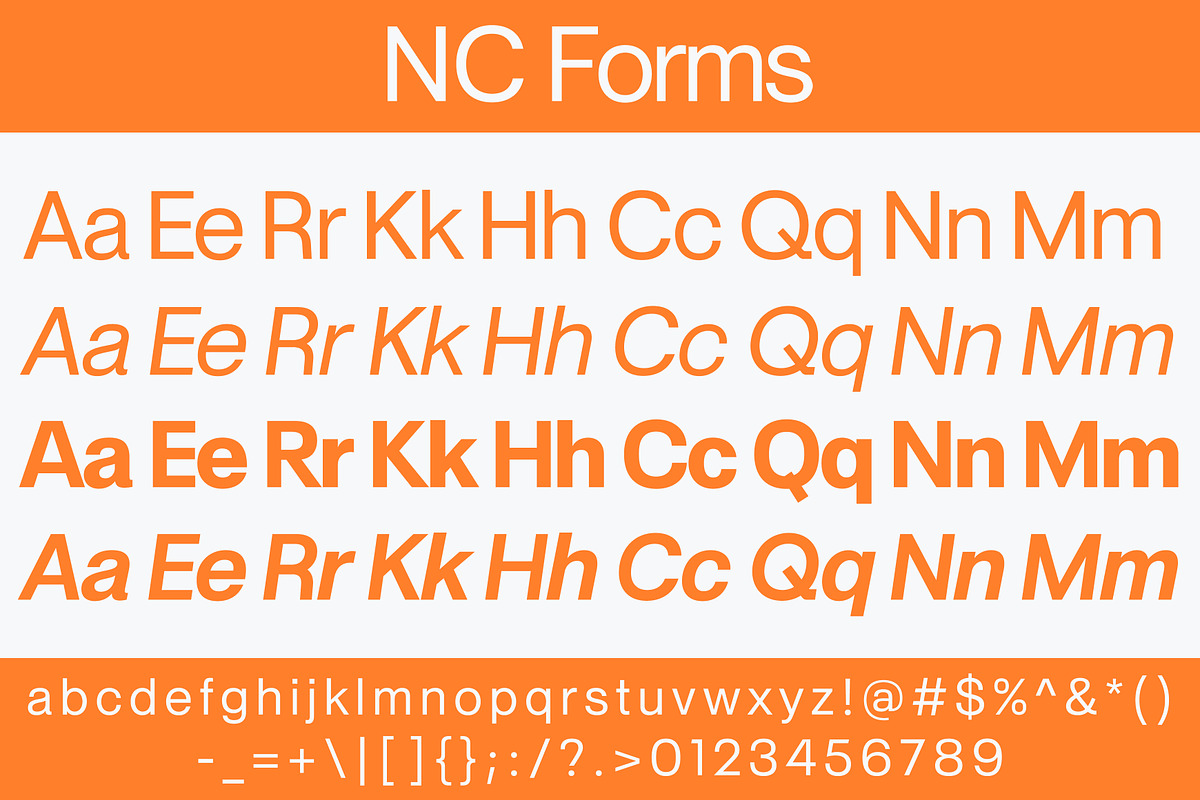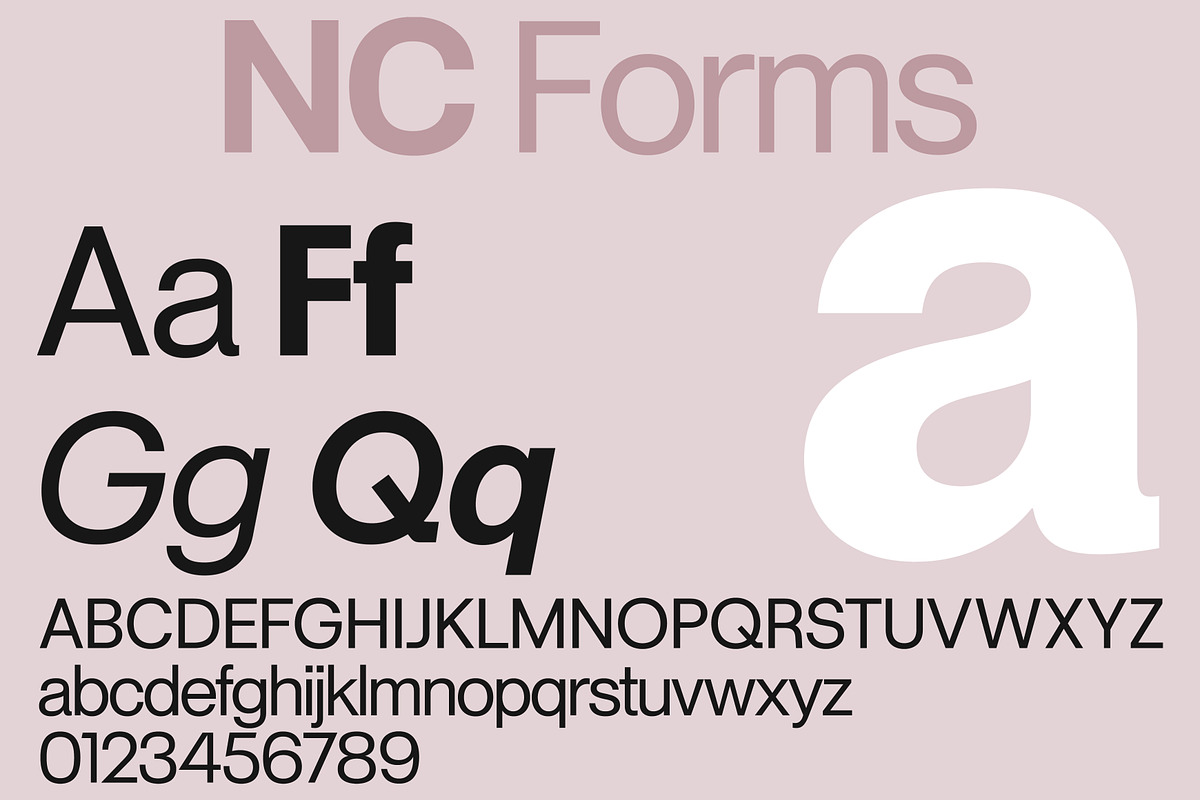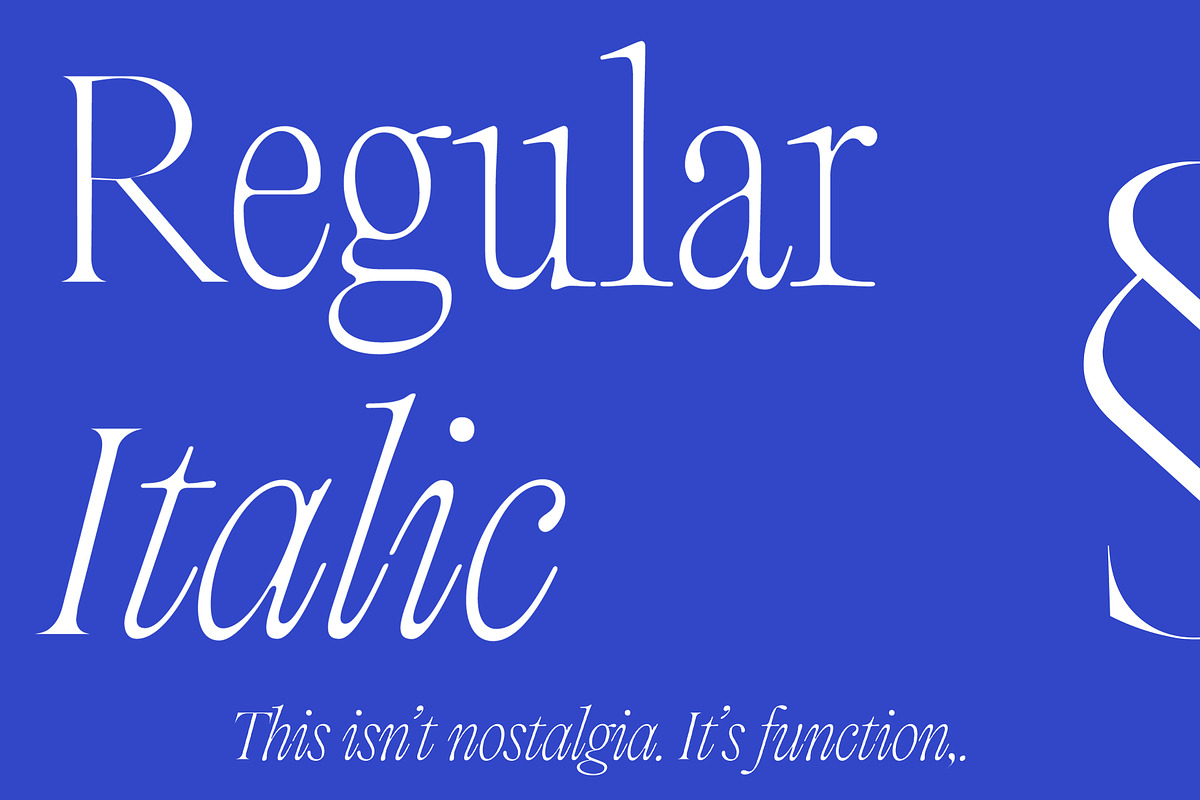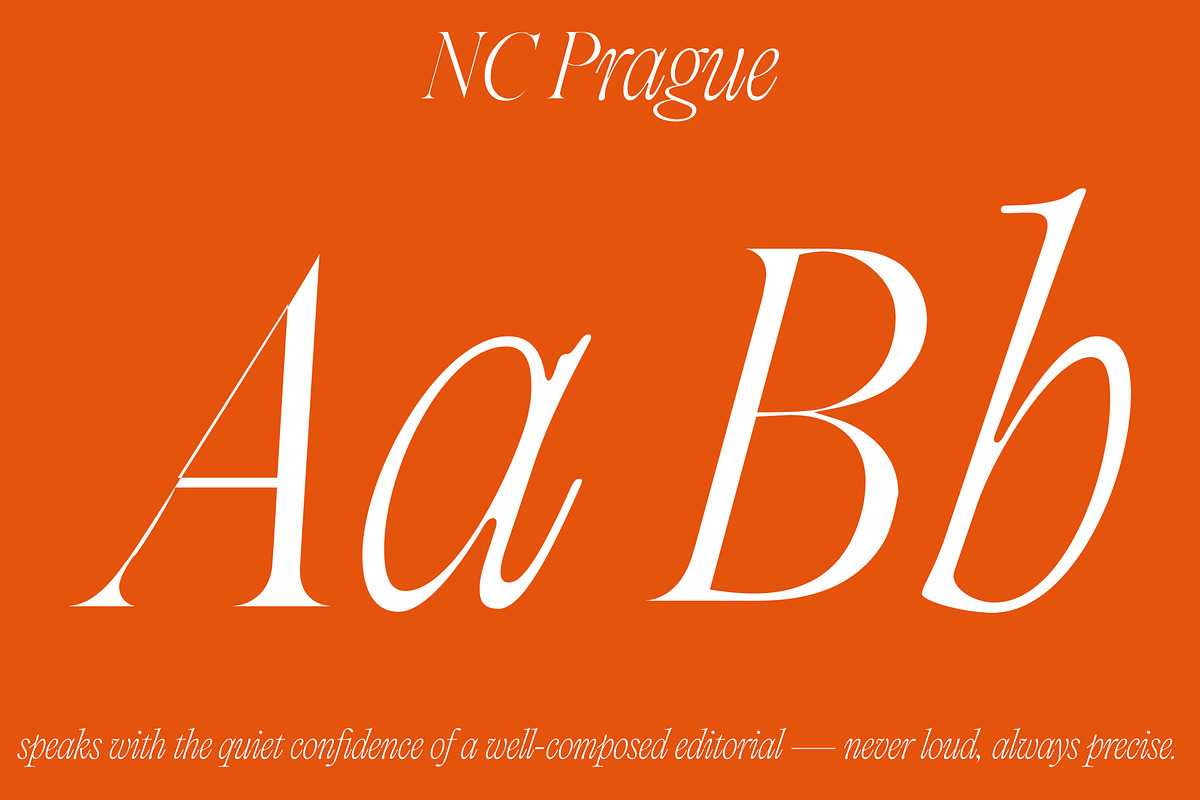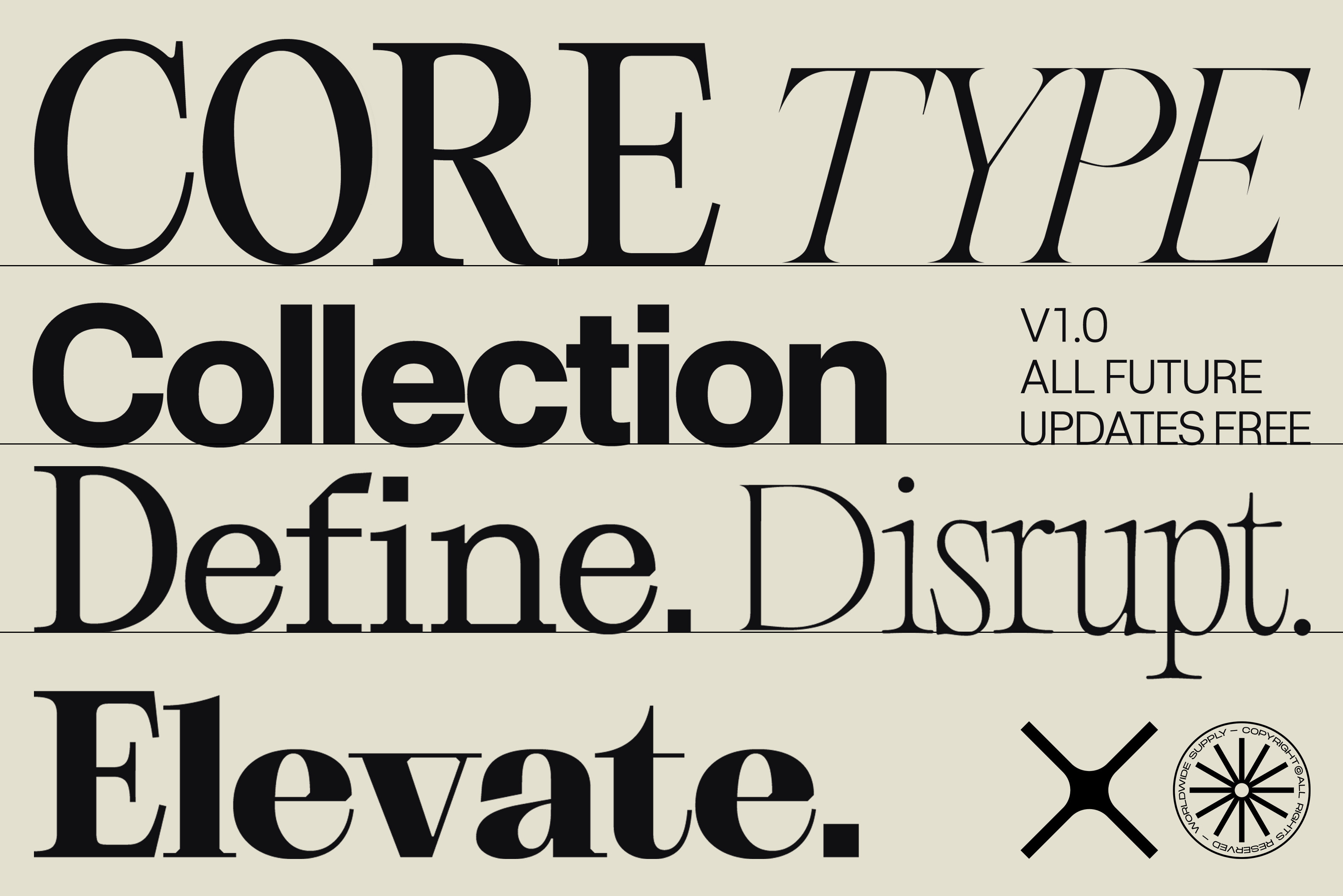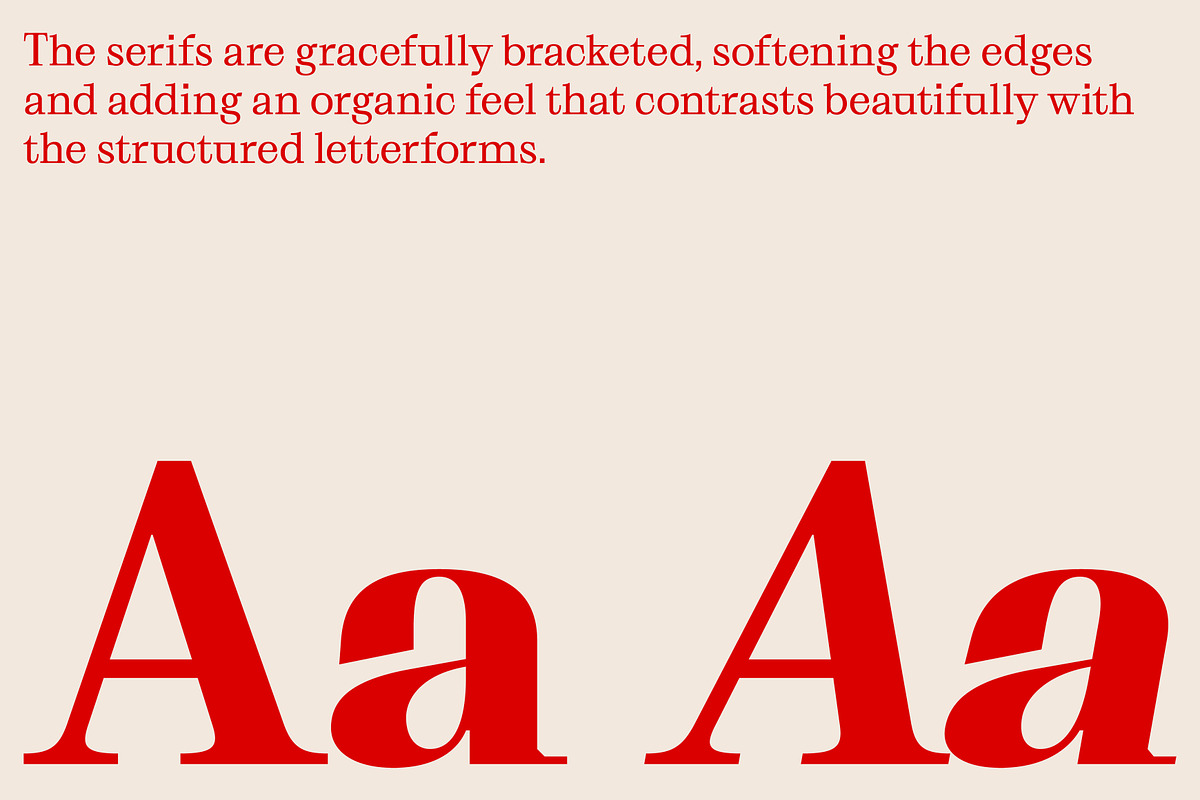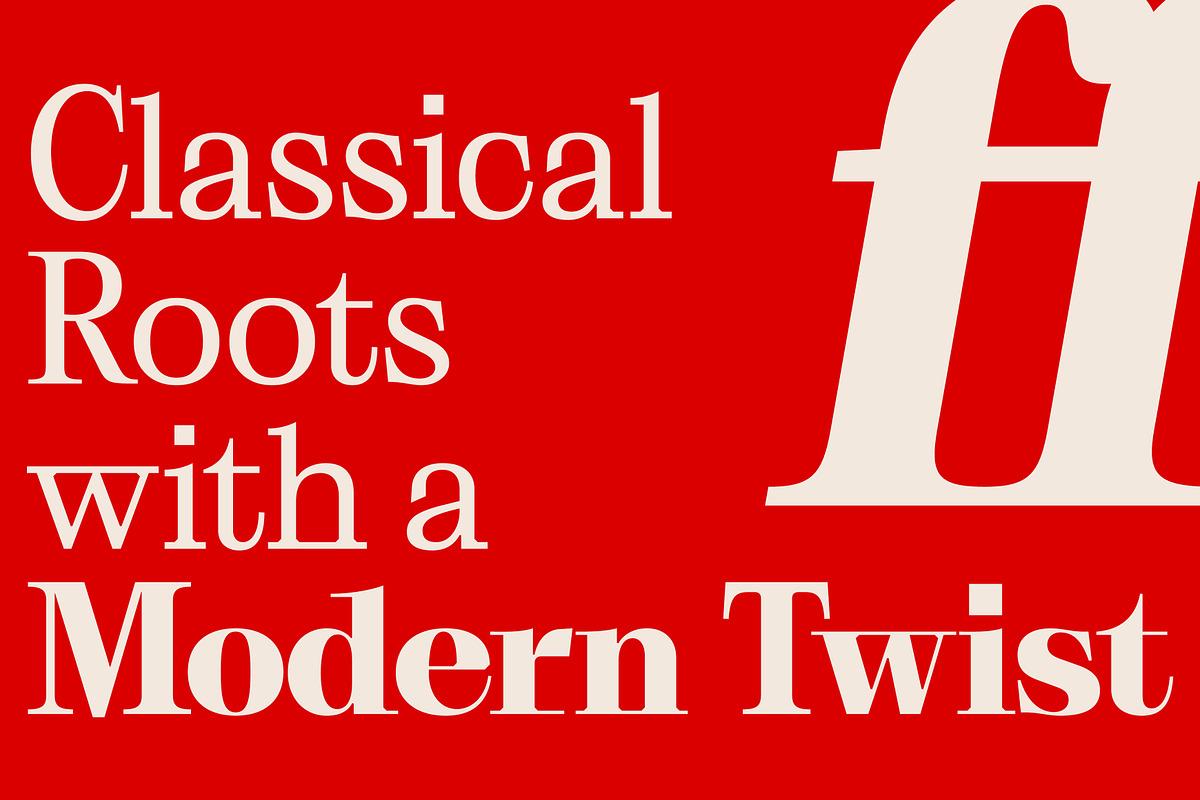
Font Kit Core Type Collection NC-29
Enter the design core of NOCTA Club with this essential trio of typefaces—crafted to define, disrupt, and elevate.
The Core Type Collection brings together the refined sharpness of NC Prague, the bold modernism of NC Holland, and the utilitarian elegance of NC Forms.
Each font carries its own rhythm, attitude, and design philosophy—together forming a toolkit built for serious identity work, editorial storytelling, and digital precision. This is not just a bundle—it’s the foundation of a visual language.